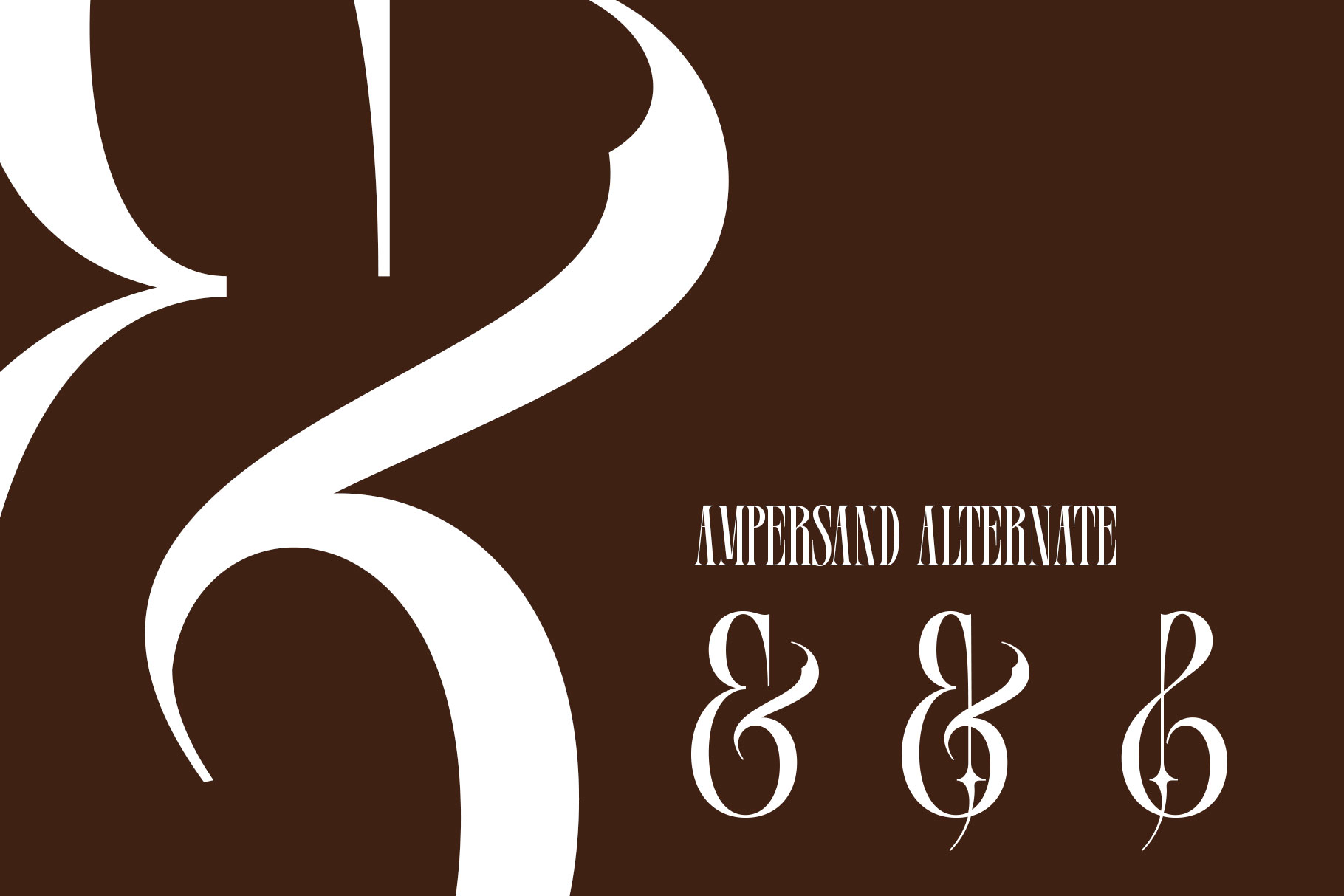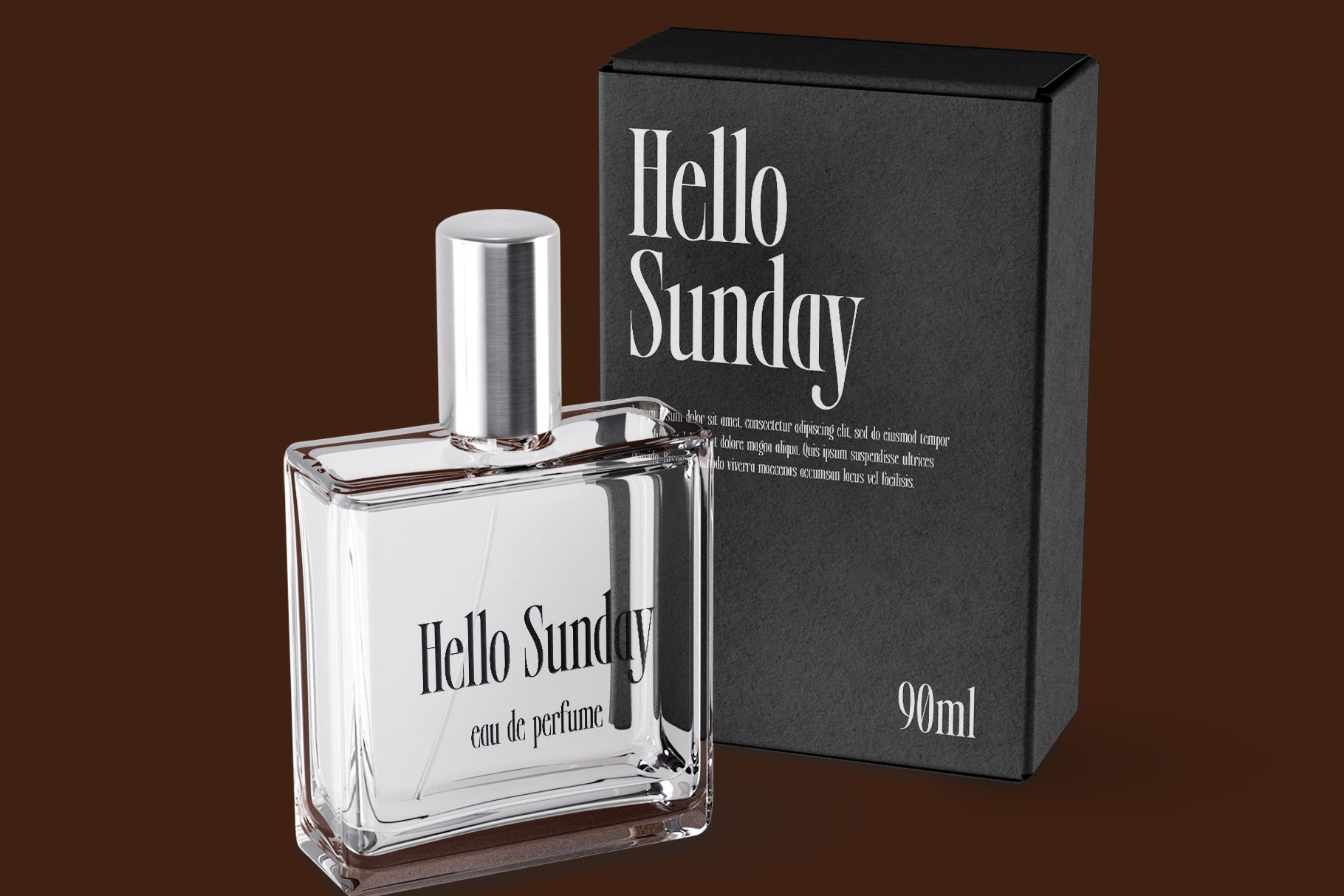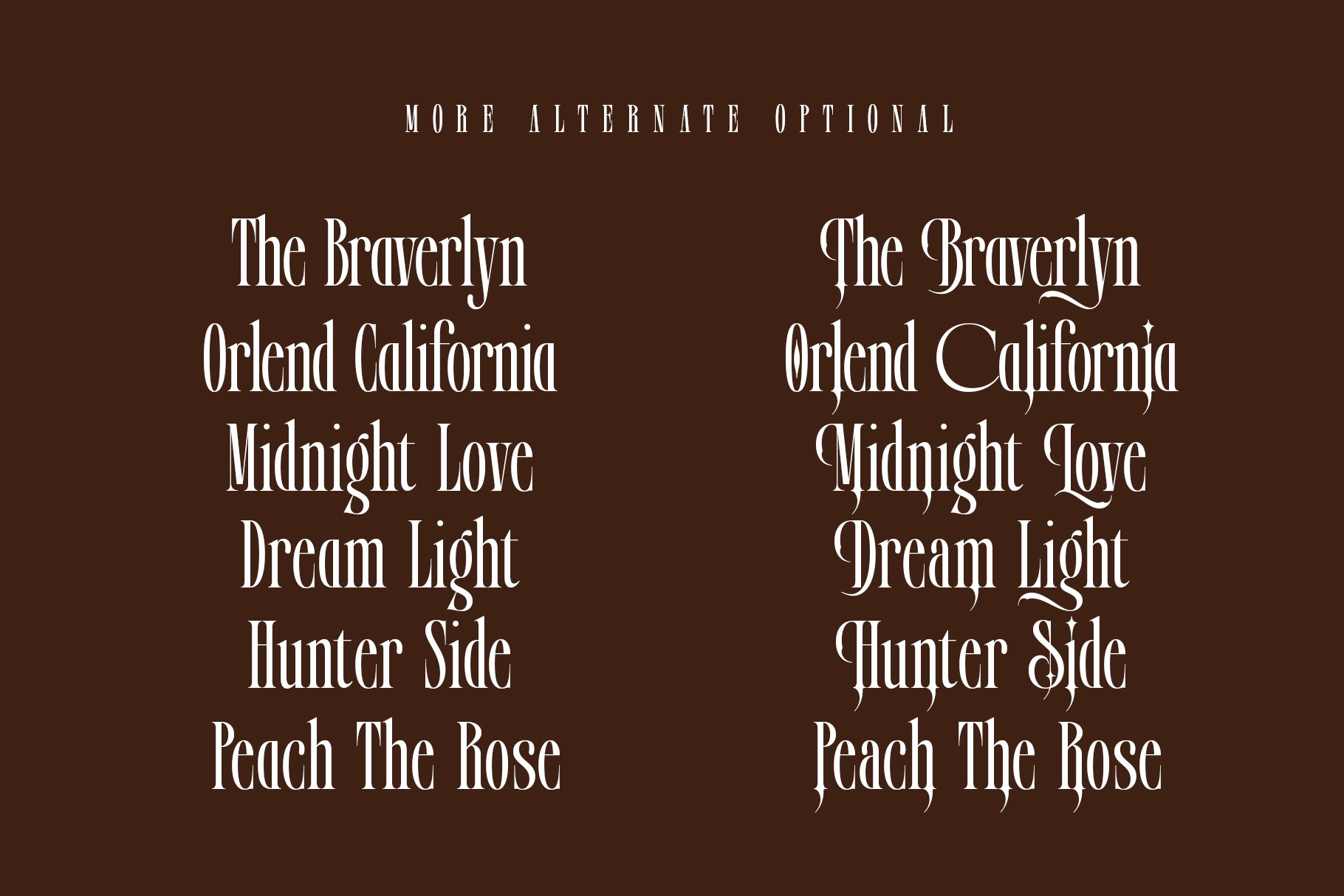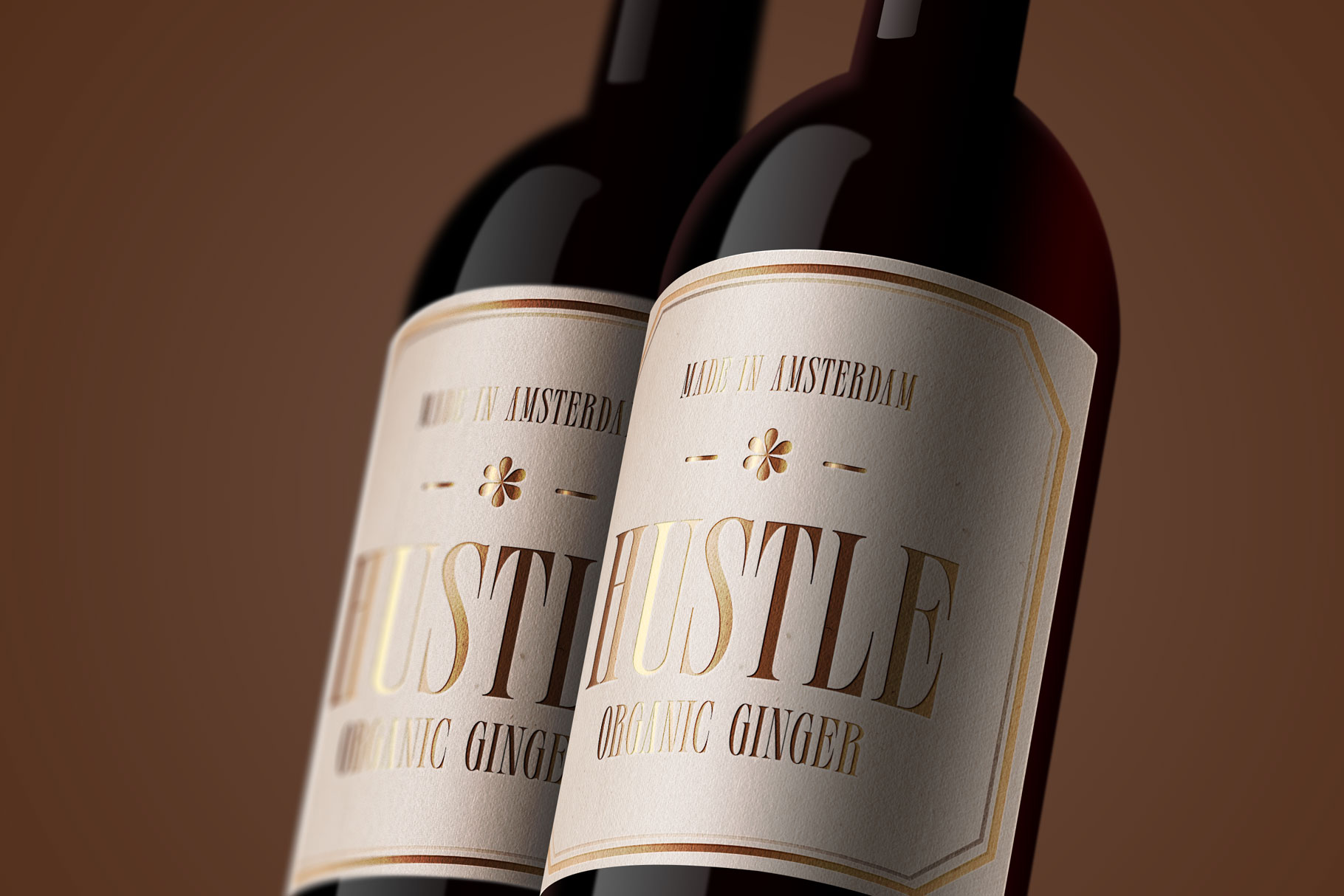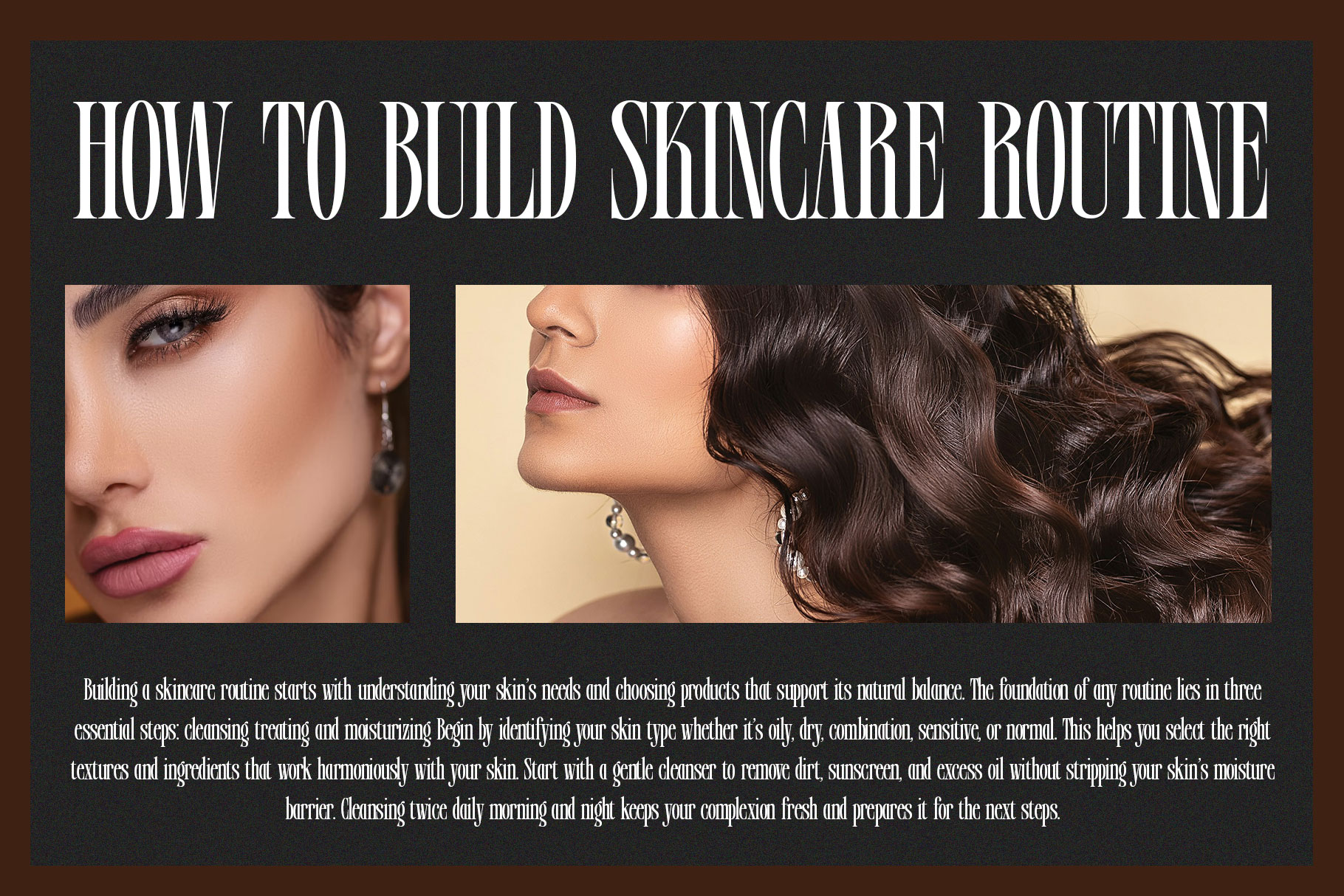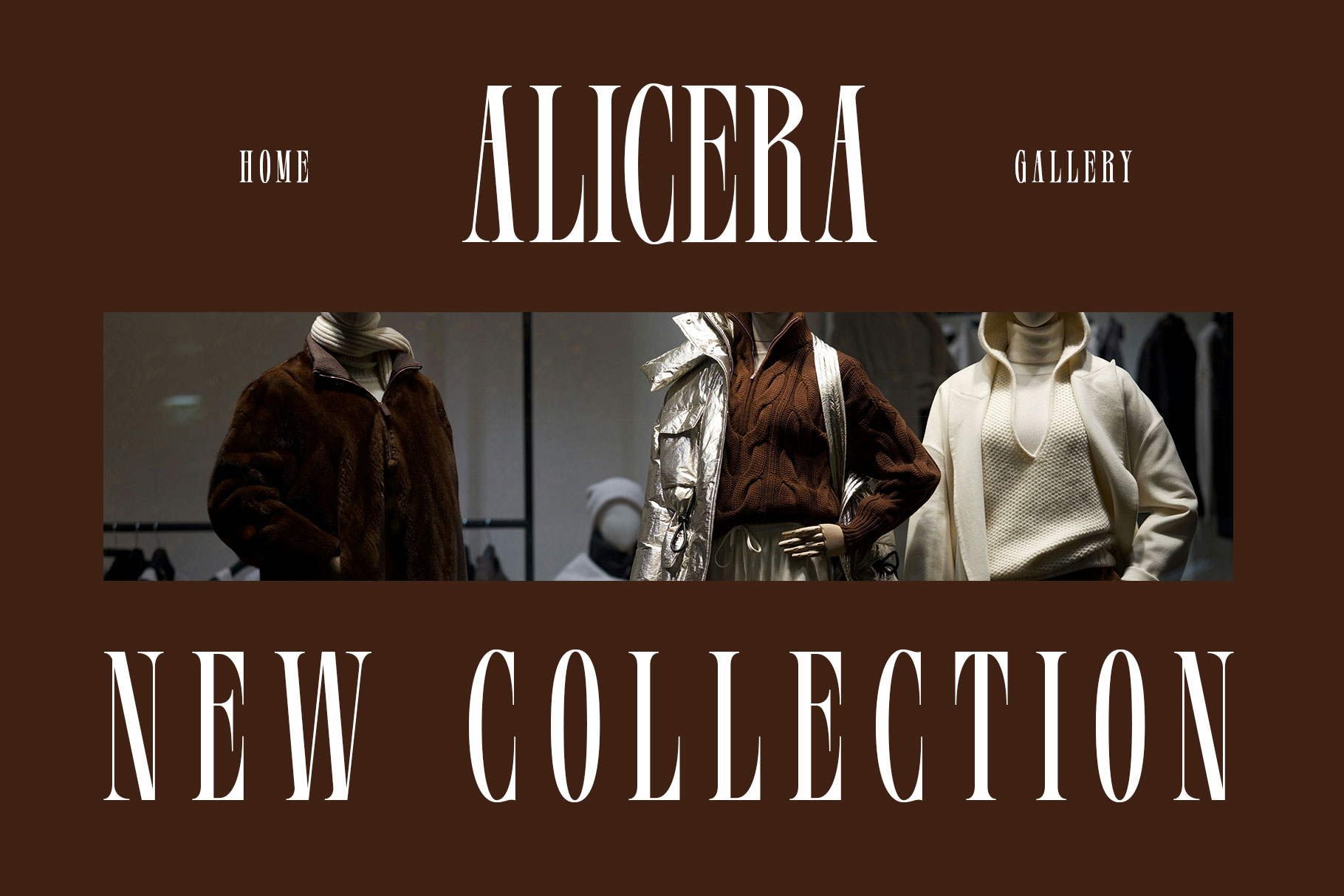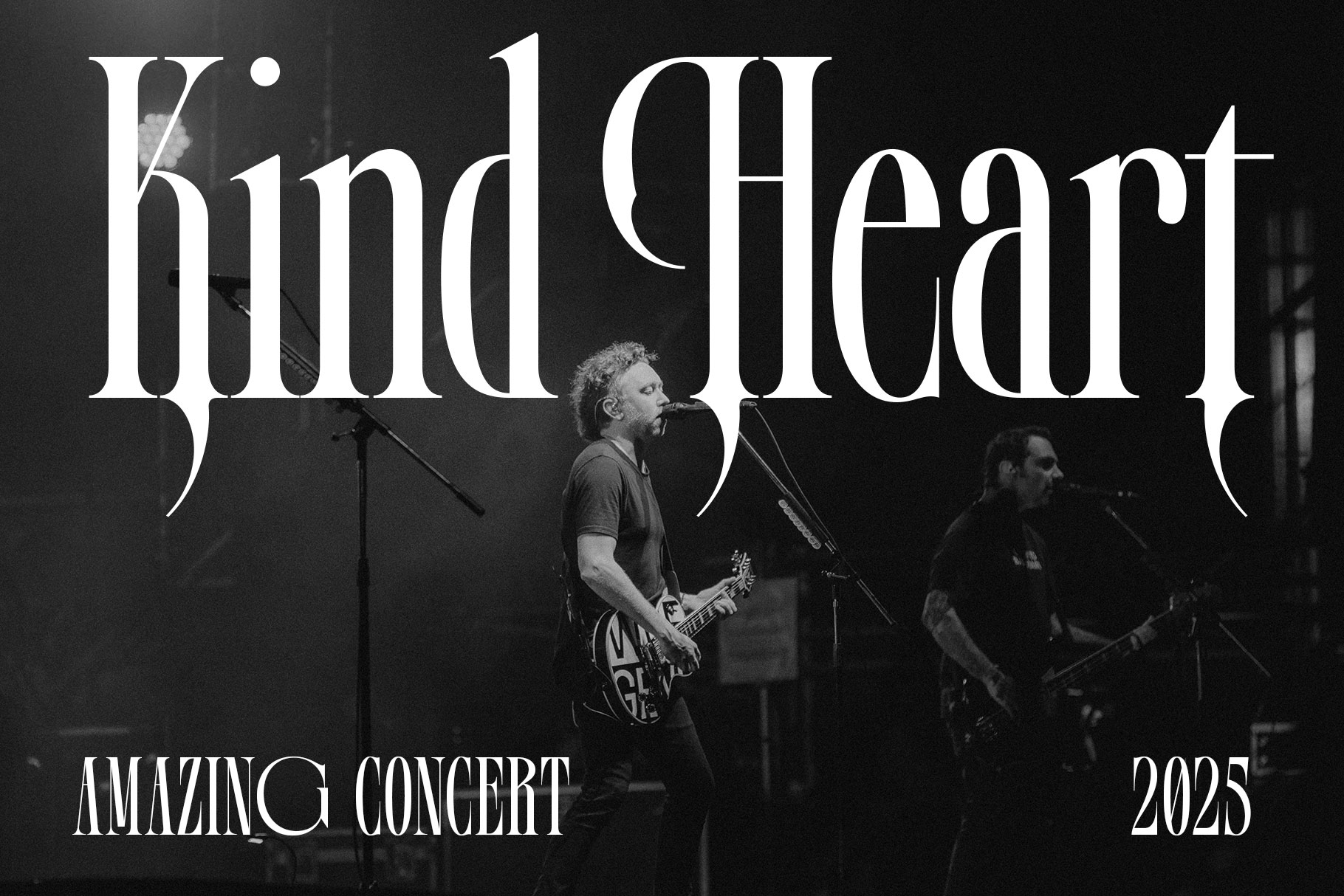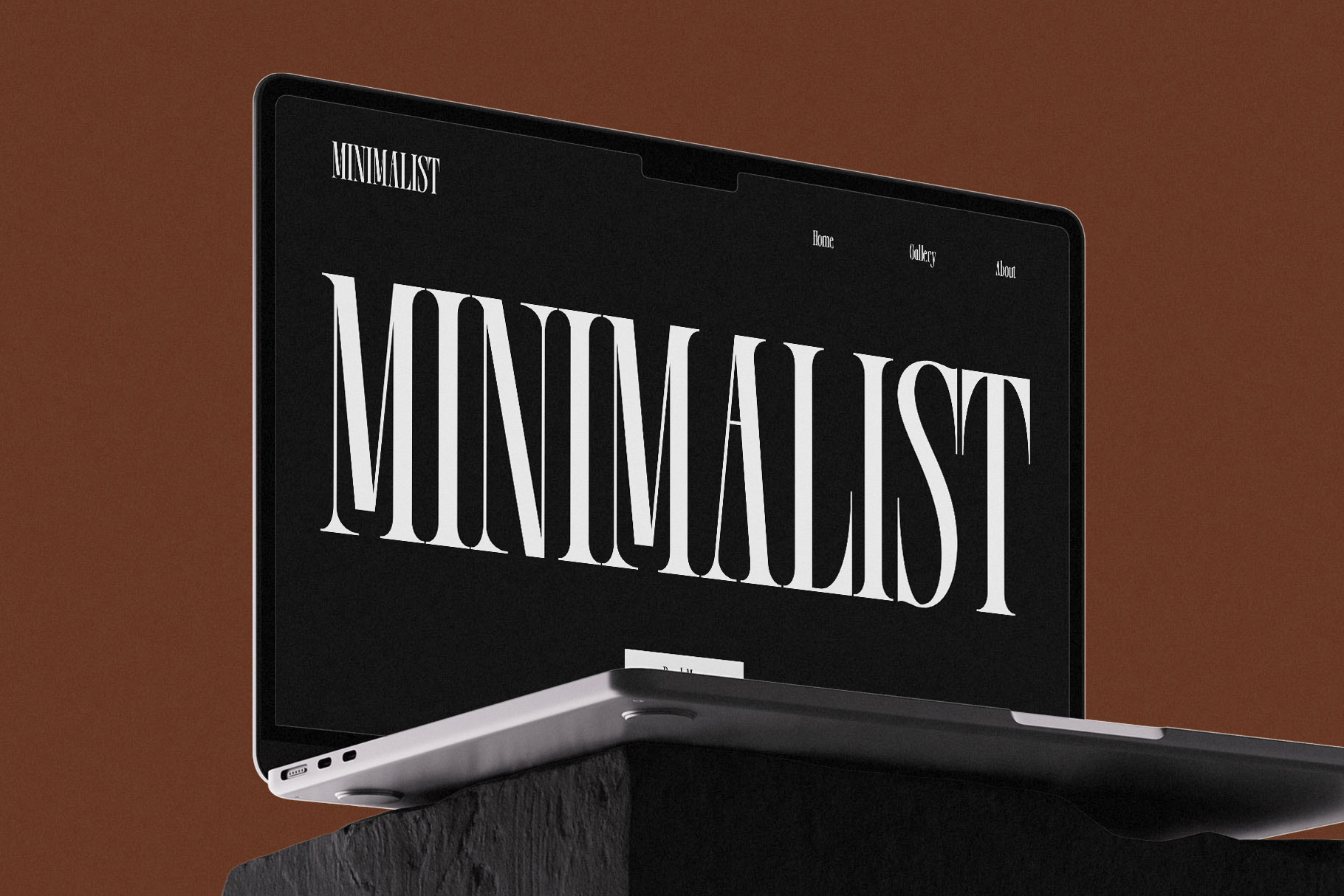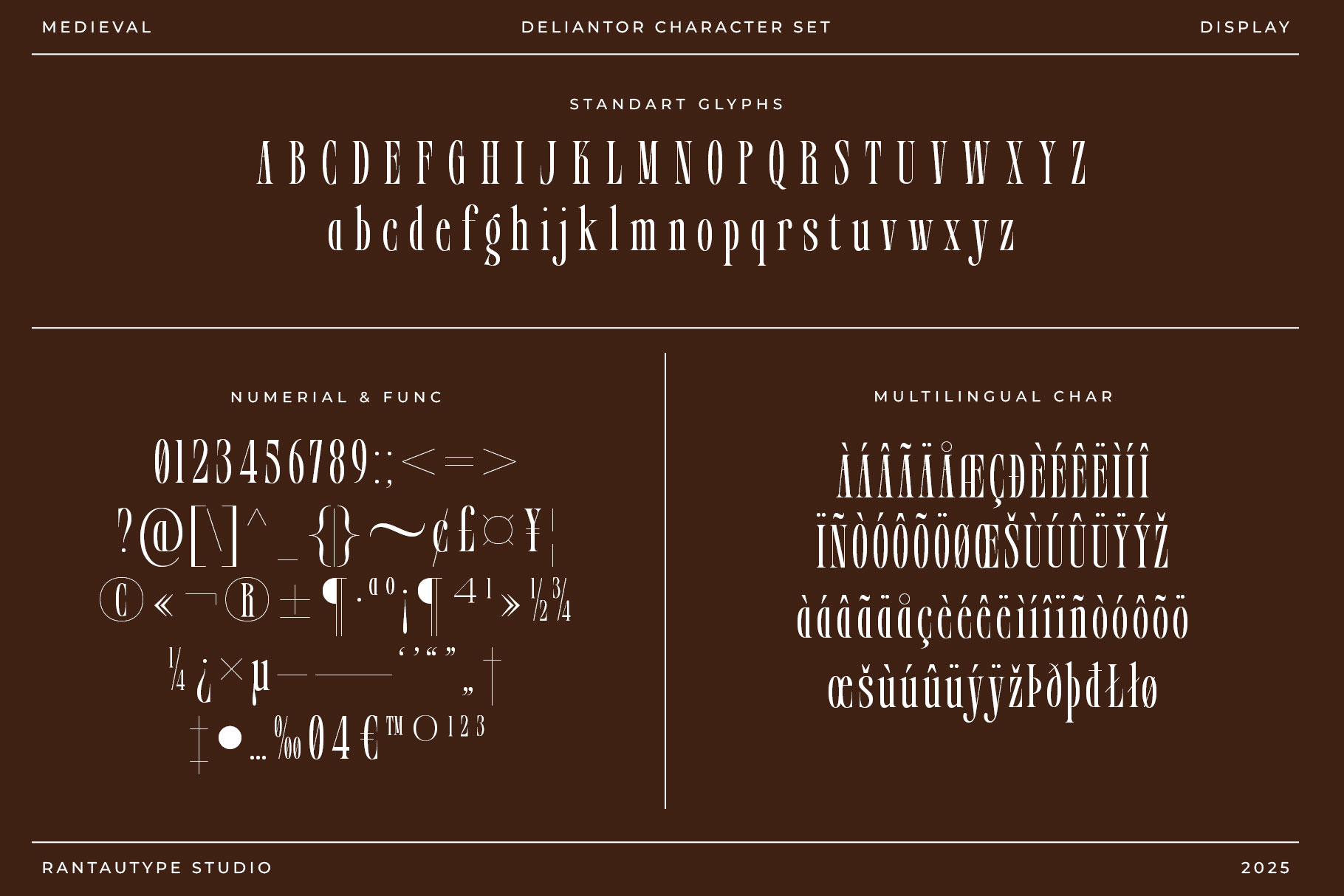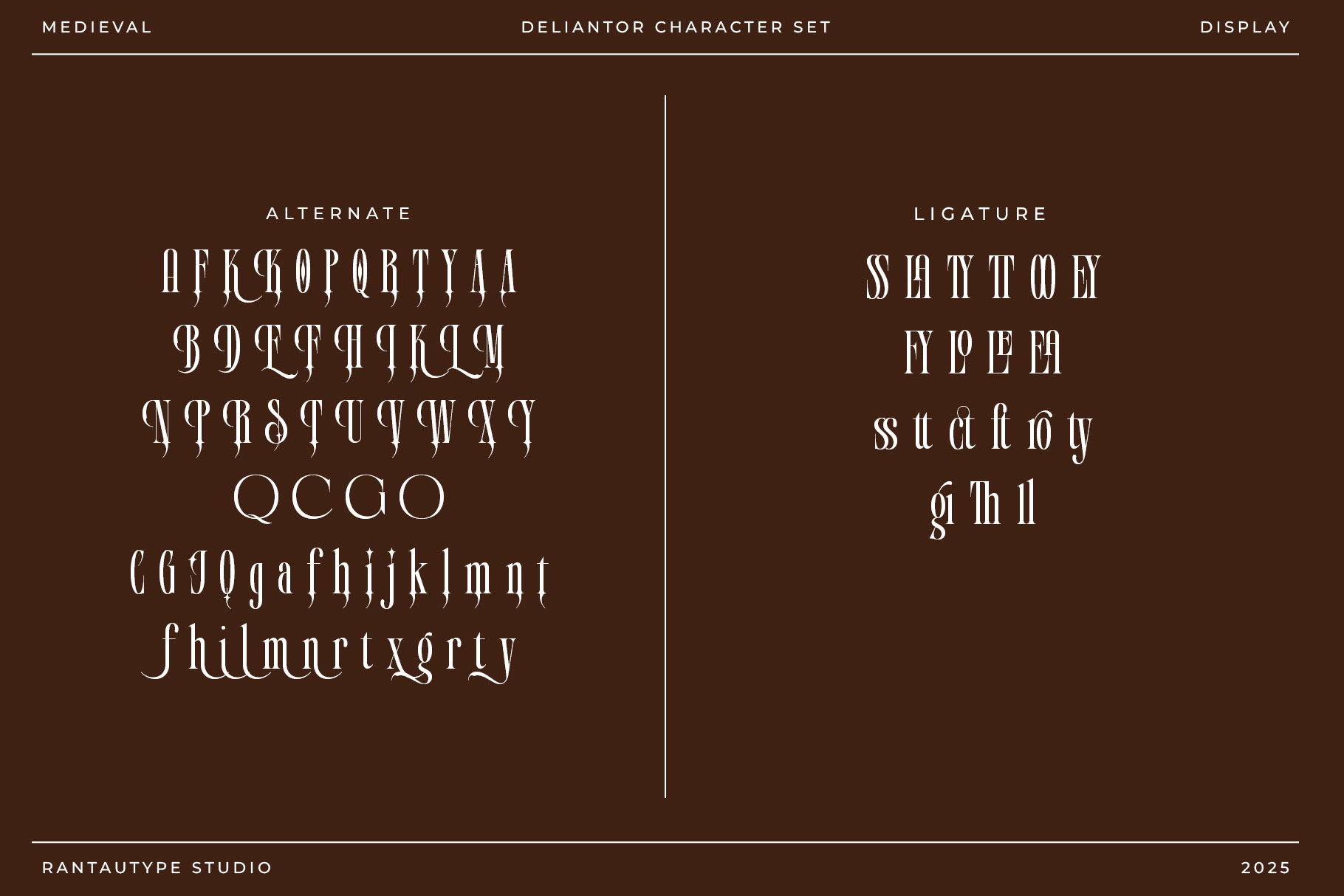
Deliantor is classy medieval font captures the timeless elegance of the Middle Ages while presenting it through a modern, refined lens. Deliantor bring balances historical richness with contemporary sophistication.
Deliantor is a perfectly choice for any creative endeavor, creating, modern, lifestyle design such as logotype, title, cover, branding, invitations, wedding designs, display and magazine, social media posts, advertisements, printed quotes, product packaging, corporate brand, product designs, labels, photography, watermarks, special events and any other project with elegant touch.